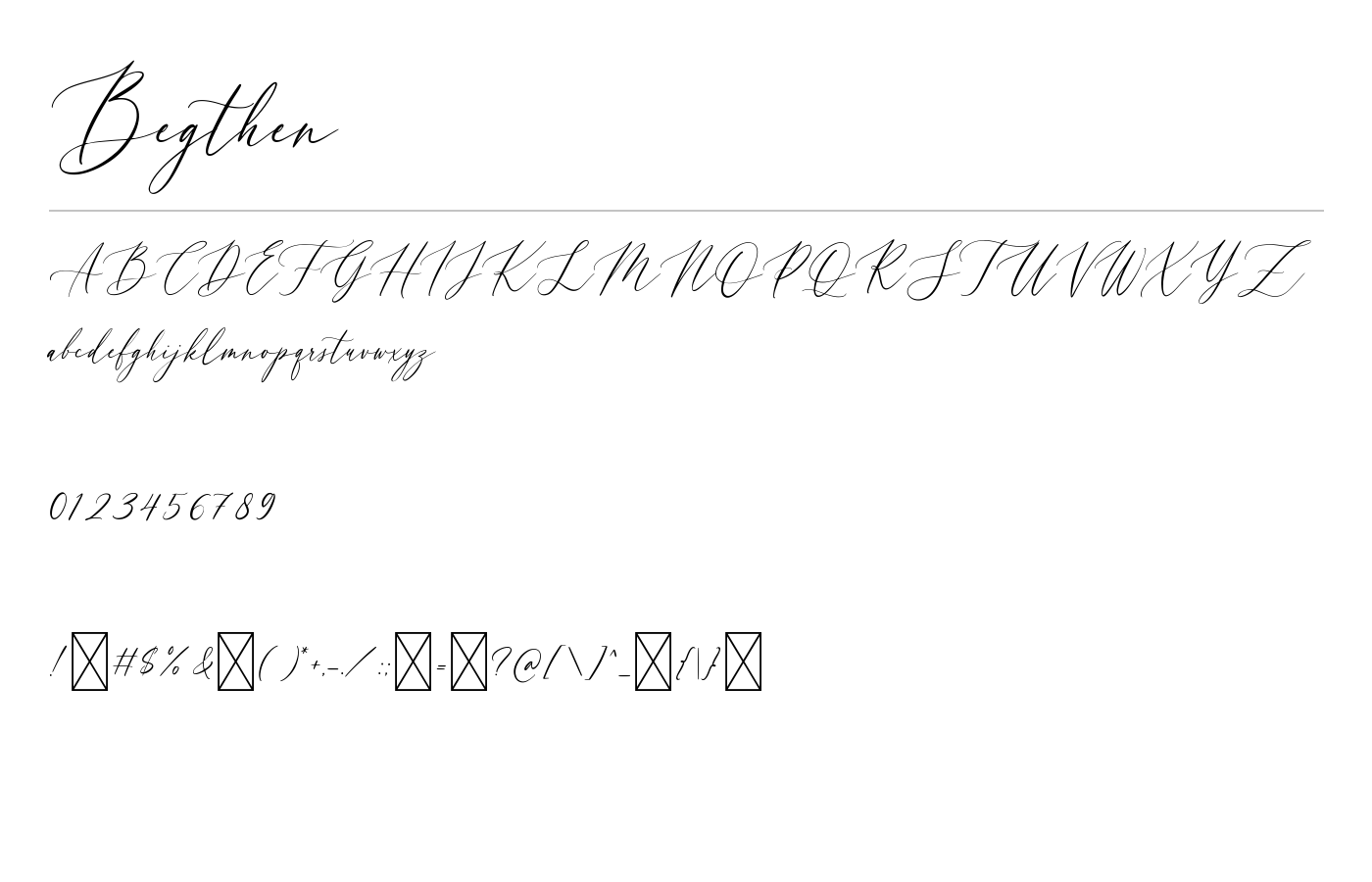
Begthen is an elegant, delicate script font characterized by its fine, flowing strokes and graceful letterforms that evoke a sense of sophistication and refinement. Its slender, high-contrast lines and cursive style make it ideal for luxury branding, wedding invitations, and upscale editorial projects where a touch of classic beauty and personal charm is desired. This font works best in large headings or decorative text, adding a stylish and airy feel without sacrificing readability at display sizes.
Begthen Font
About Begthen Font